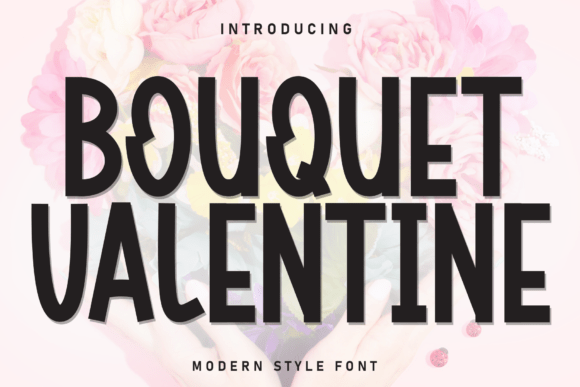
Love at First Sight: Discover the Allure of Bouquet Valentine Font
Have you ever been working on a design project, and suddenly, the perfect font pops into your mind, elevating your entire creation to a new level of charm and character? That’s exactly what happens when you meet the Bouquet Valentine Font. This delightful, handwritten display font is designed to capture the sweetness of love and add a playful touch to your designs.
Whether you’re a wedding planner, a graphic designer, or a crafter, the Bouquet Valentine Font is an invaluable asset to your creative toolkit. Its lively and fun-loving character makes it the perfect companion for any project that requires a touch of whimsy and romance. With its effortless charm, this font brings your designs to life, making it a must-have for any designer looking to add a personal and unique touch to their work.
Bouquet Valentine Font Key Features
- Unique Characteristics: Features a hand-drawn, elegant design with intricate details and a romantic feel, perfect for Valentine’s Day and other special occasions
Bouquet Valentine Font Review
Overall, I think Bouquet Valentine Font is a charming and whimsical addition to any design project. ✨ It’s perfect for Valentine’s Day-themed designs, but its playful, handwritten style also makes it suitable for various other romantic and feminine concepts. ✨ The font is highly customizable, allowing designers to easily adjust its style and size to suit their needs. ✨ Additionally, it’s a great choice for creating eye-catching titles, headings, and captions.
- Charming and whimsical design ✨
- Perfect for Valentine’s Day-themed designs
- Great for creating eye-catching titles, headings, and captions
However, I do have some reservations about this font. ⚠️ It may not be suitable for formal or professional designs, as its playful style may come across as unprofessional. ⚠️ Additionally, some of the characters may not be as smooth or connected as they could be, which can make the text appear a bit disjointed. ⚠️ Finally, the font’s size may not be as scalable as some designers might like, which can lead to issues with text clarity at smaller sizes.
- May not be suitable for formal or professional designs
- Some characters may appear disjointed
- Size may not be scalable
Overall, I would give Bouquet Valentine Font 4 out of 5 stars. It’s a lovely font that can add a touch of whimsy and romance to any design, but it may not be suitable for every project.
For a romantic touch, pair the Bouquet Valentine Font with pastel colors and floral elements.
For a whimsical touch, combine the Bouquet Valentine Font with hand-drawn illustrations and watercolor effects.
For a professional touch, pair the Bouquet Valentine Font with clean lines and minimalist graphics.
The Bouquet Valentine Font is perfect for:
Valentine’s Day cards and invitations
Wedding stationery and decorations
Floral-themed designs and branding
Romantic and whimsical illustrations
Comparison to Bouquet Valentine Font: While both fonts have a romantic feel, Great Vibes has a more elegant and sophisticated look, making it suitable for more formal designs. Bouquet Valentine Font is more playful and whimsical, making it perfect for casual projects.
Lovely Script Font
Lovely Script is a delicate, handwritten font ideal for creating a romantic and intimate atmosphere. It features a flowing script style with a soft, feminine touch, making it perfect for wedding invitations, baby shower invitations, and other special occasion projects.
Q: Does the Bouquet Valentine Font include any special features or ligatures?
Yes, the Bouquet Valentine Font includes a range of ligatures and contextual alternates to help you create beautiful, flowing text. It also supports a wide range of languages, including Latin, Cyrillic, and Greek scripts.